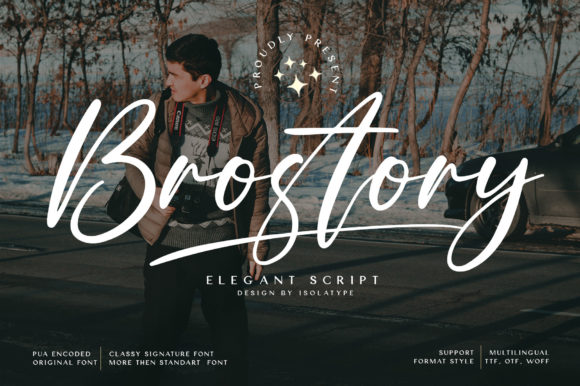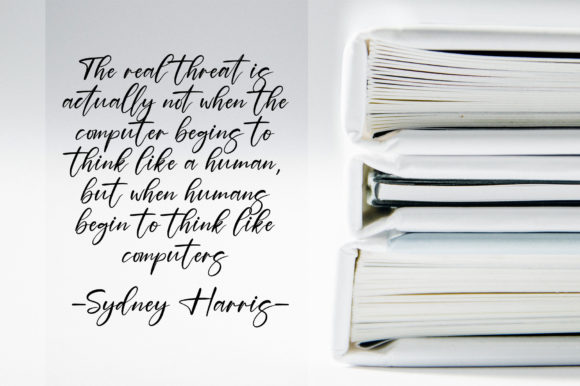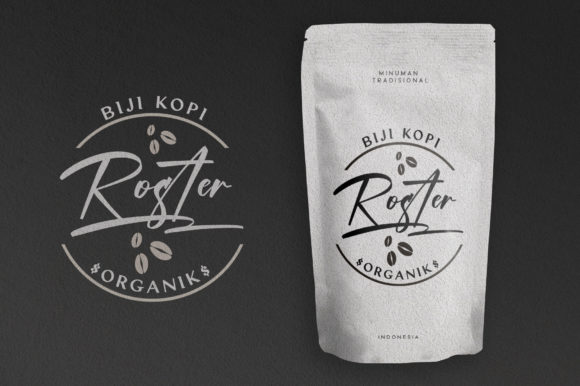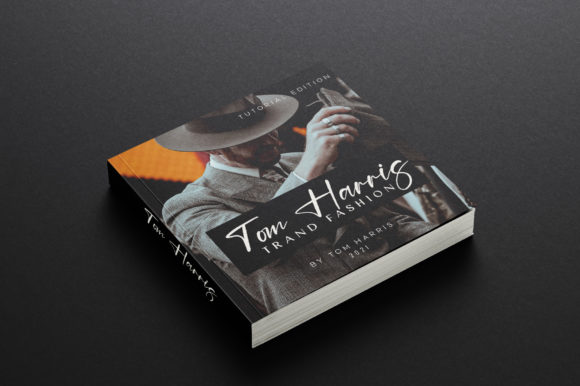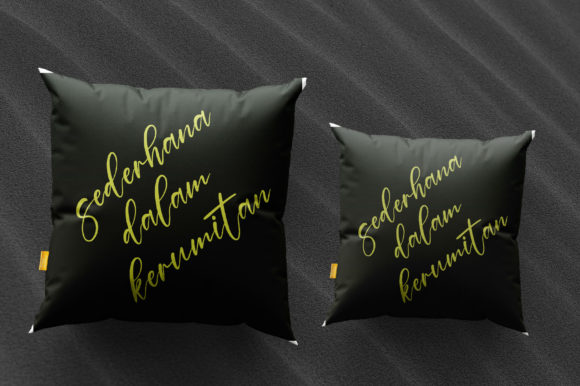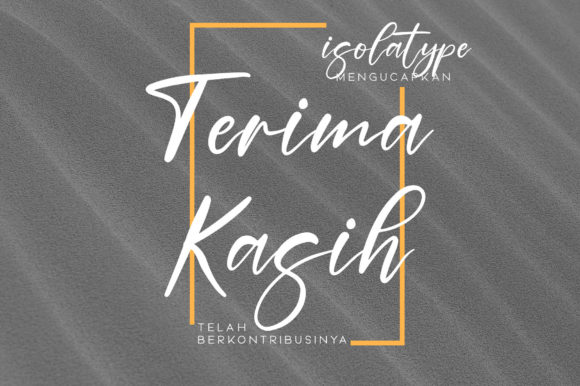
Brostory Font
About Brostory Font
Brostory is a charming and elegant script font that adds a touch of beauty and sophistication to various design projects. With its graceful letterforms and versatile nature, Brostory is suitable for a wide range of applications, including wedding invitations, thank you cards, quotes, greeting cards, logos, business cards, and more.
The charm of Brostory lies in its carefully crafted lettering style, which exudes elegance and grace. Each character is meticulously designed with smooth curves and balanced proportions, creating a harmonious and visually appealing look. Whether you’re designing romantic wedding invitations or heartfelt thank you cards, Brostory adds a touch of beauty and refinement to your designs.
The versatility of Brostory makes it a valuable asset in your design toolkit. It is well-suited for a variety of projects and can adapt to different design themes and styles. Whether you’re aiming for a classic and timeless look or a more modern and contemporary feel, Brostory can effortlessly fit into your desired aesthetic.
The PUA encoding of Brostory is an added benefit, as it allows easy access to all the glyphs and swashes included in the font. This means you can easily explore and utilize the various decorative elements and alternate characters available in Brostory. By incorporating these glyphs and swashes, you can further customize and personalize your designs, adding unique touches and enhancing the overall visual impact.
In summary, Brostory is a charming and elegant script font that enhances the beauty of your designs. Its versatility and PUA encoding provide you with the flexibility to create customized and visually stunning projects. Whether you’re working on wedding invitations, logos, or any other design that requires a customized touch, Brostory is a wonderful choice that brings charm, elegance, and creativity to your designs.